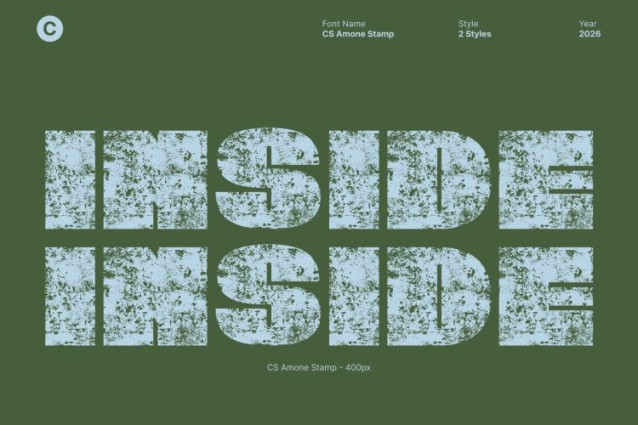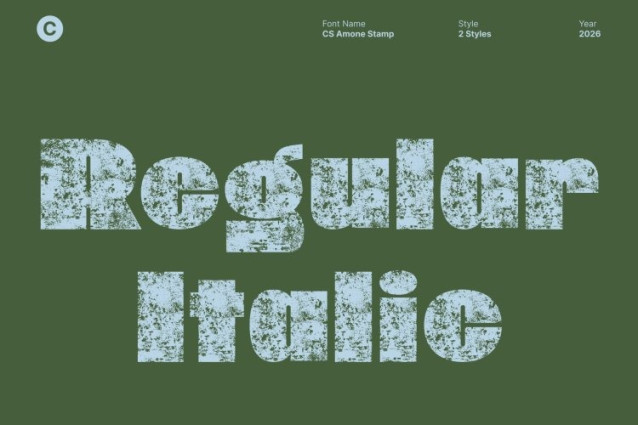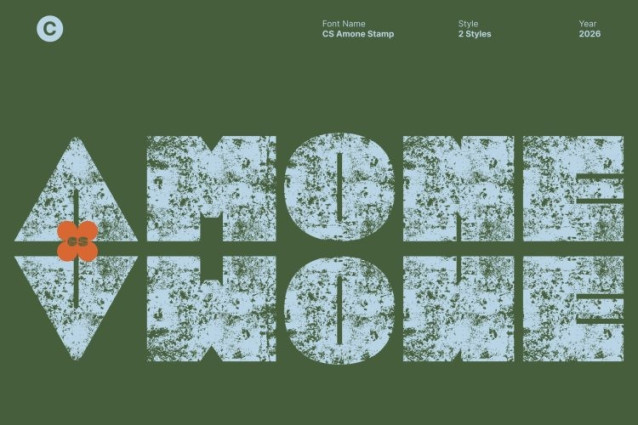
CS Amone Stamp Font
CS Amone Stamp Font This is a bold display sans serif font designed to project power, confidence, and unmistakable visual authority. Built with heavy strokes and commanding proportions, it delivers a strong typographic presence that instantly captures attention. Enhanced with a stamped texture, the font gains a vintage character that adds depth, grit, and expressive charm to its bold construction.
Strong Letterforms with Artistic Texture
Each letterform is crafted with substantial weight and balanced structure, creating a solid and confident appearance. The thick strokes and bold silhouettes feel muscular and grounded, while the stamp effect introduces organic imperfections that give the font an artistic, handcrafted quality.
Designed to Command Attention
This font thrives in designs where impact is essential. Its bold personality and textured finish make it perfect for headlines, posters, and hero text that demand immediate focus. The stamped detail enhances its visual intensity, ensuring every word feels assertive, expressive, and memorable across both print and digital media.
Perfect for Impactful Branding and Visual Statements
Ideal for branding, advertising, merchandise, and promotional projects, this font helps brands communicate confidence and bold identity. Its combination of heavy structure, vintage stamp texture, and artistic uniqueness makes it especially effective for logos, campaign visuals, and editorial layouts that aim to leave a lasting impression.